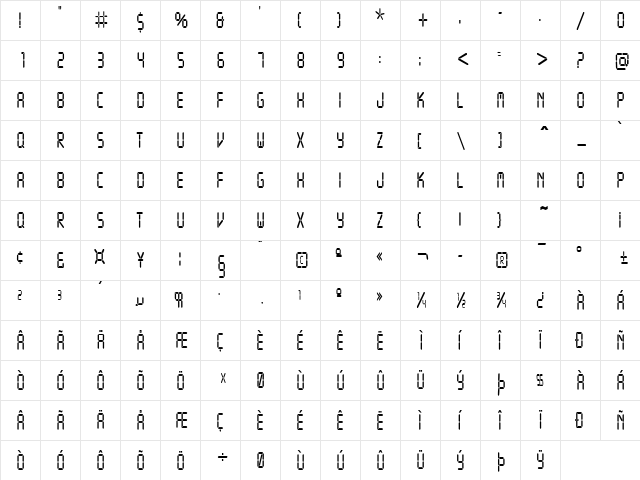
ReadoutCondensed Regular
Design Context for ReadoutCondensed Typeface
ReadoutCondensed takes a measured approach to typography — its balanced proportions and neutral character make it a reliable workhorse for both digital and print work. Its narrow stance lets it pack a punch even in space-constrained designs.